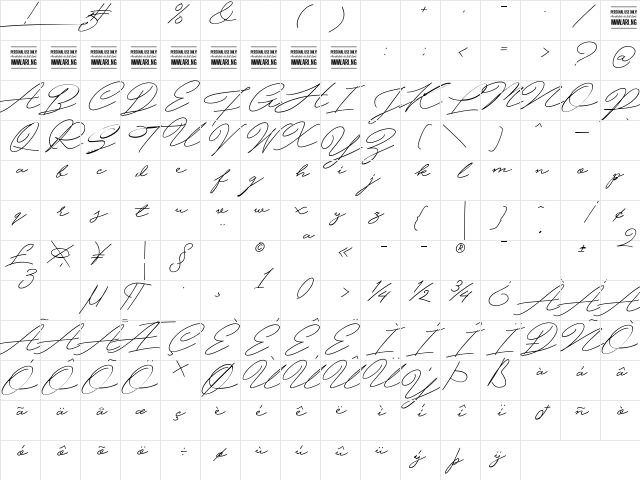
Complete Hijrnotes PERSONAL USE ONLY Regular glyph index. Displaying only characters natively supported by Hijrnotes PERSONAL USE ONLY Regular font.
Hijrnotes PERSONAL USE ONLY is a composed and adaptable typeface that performs quietly and consistently across a wide range of design contexts.